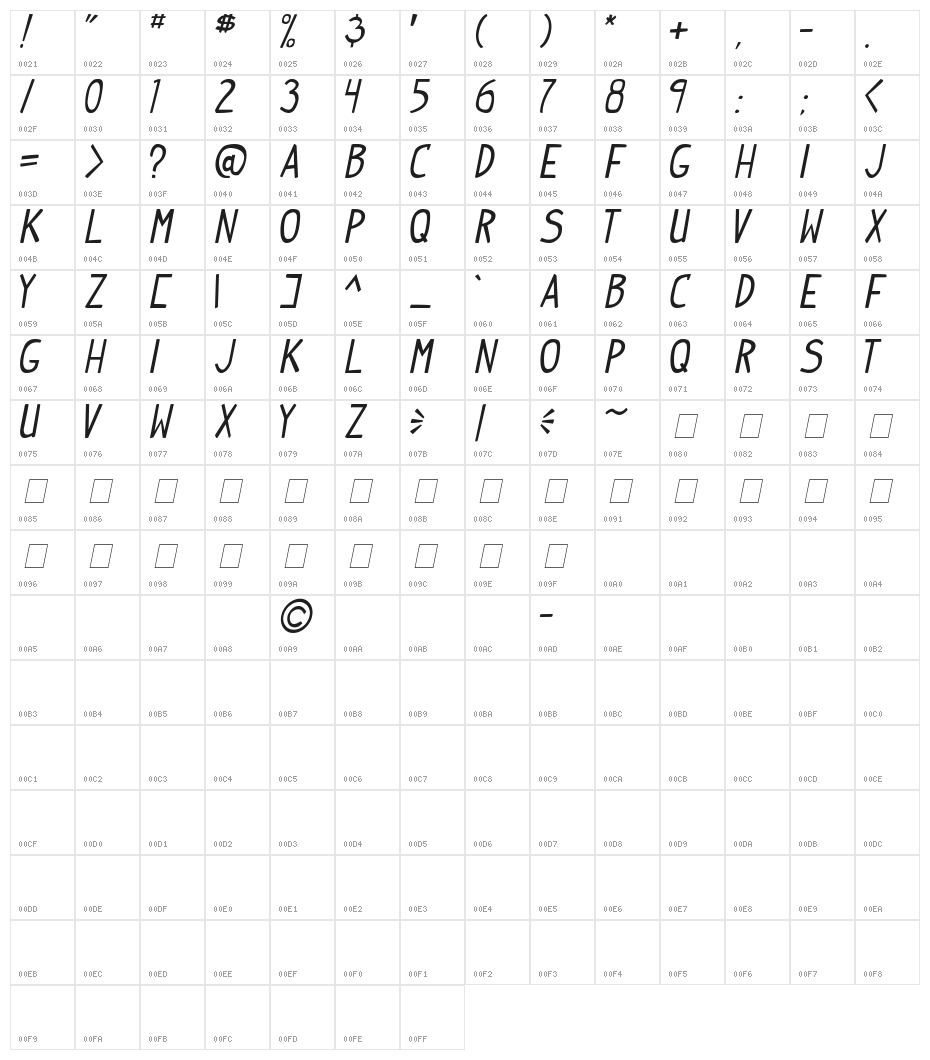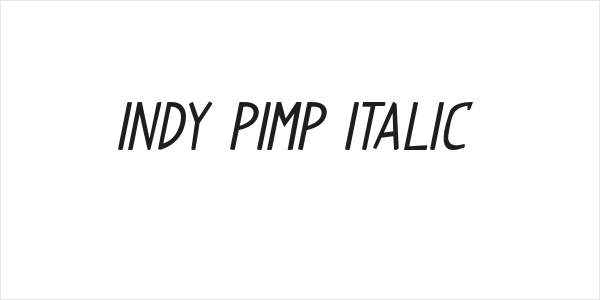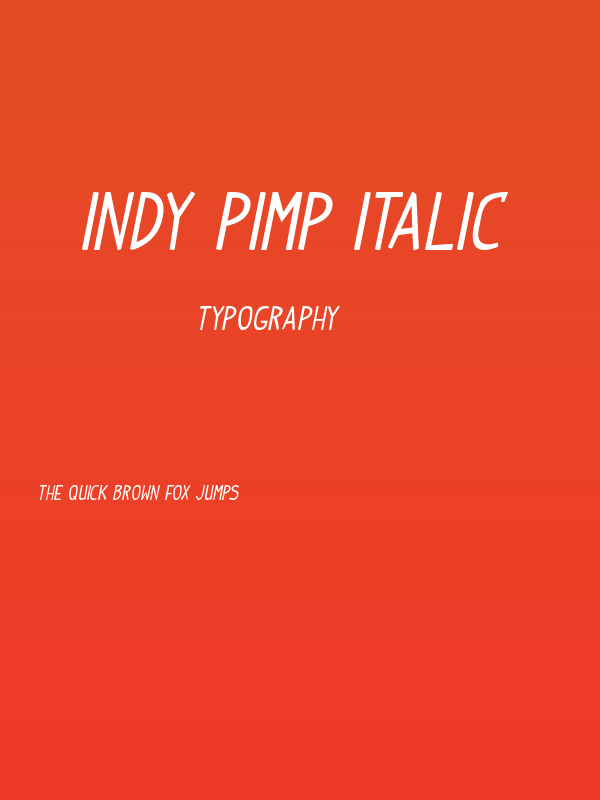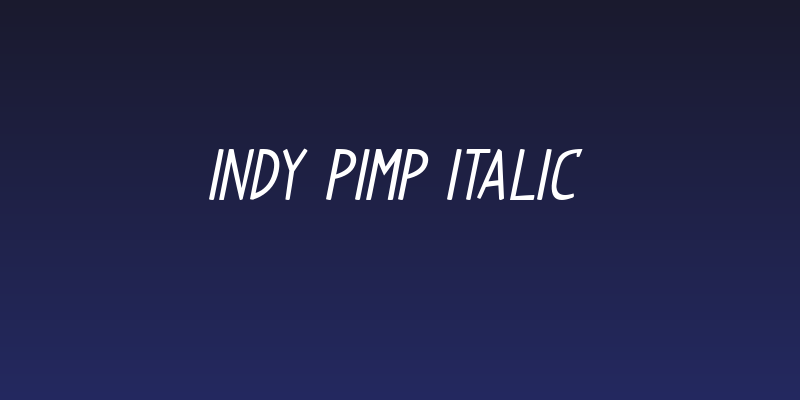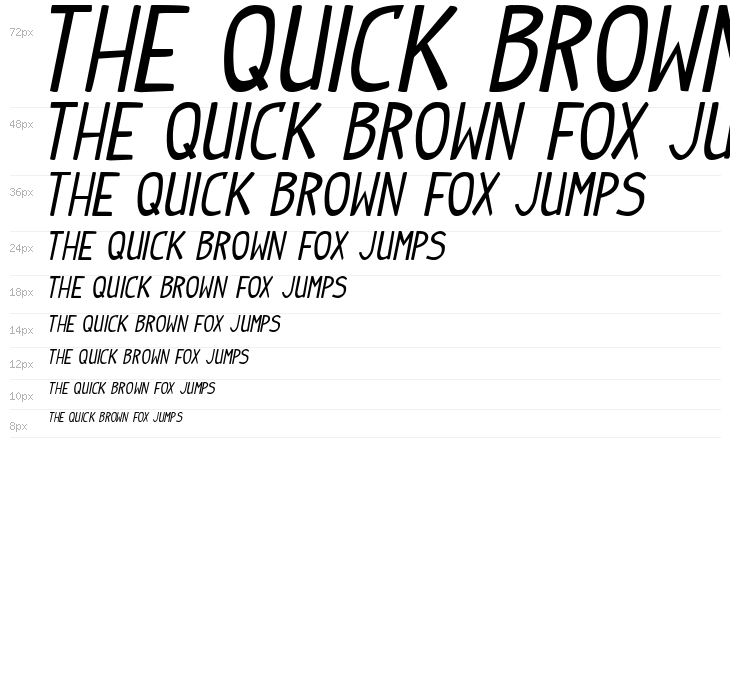
Indy Pimp Italic Font
Indy Pimp Italic Description
This font features a dynamic and energetic style, characterized by its italicized and slightly condensed letterforms. The strokes are smooth and fluid, giving it a sense of motion and modernity. The uppercase and lowercase letters maintain a consistent slant, enhancing the italic effect. The numerals are clear and distinct, matching the overall style of the alphabet. Special characters are well-integrated, maintaining the font's cohesive appearance. This font's design is both stylish and legible, making it suitable for a variety of creative applications.
| Proposed Projects | Ideal for branding, advertising, posters, and any project requiring a modern, energetic touch. |